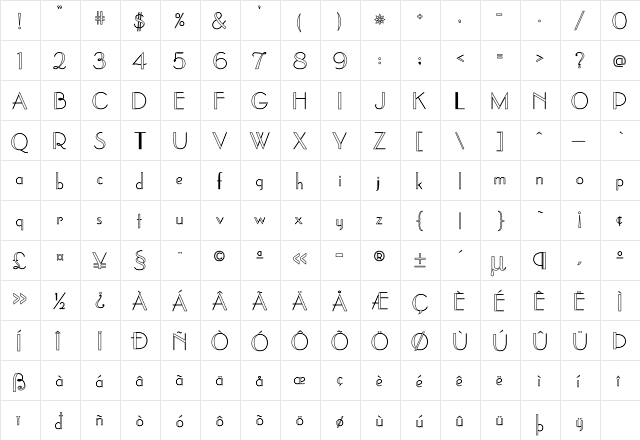
EastSide Ho Regular Font Preview
EastSide Ho Regular
Design Context for EastSide Ho Typeface
EastSide Ho is a composed and adaptable typeface that performs quietly and consistently across a wide range of design contexts.